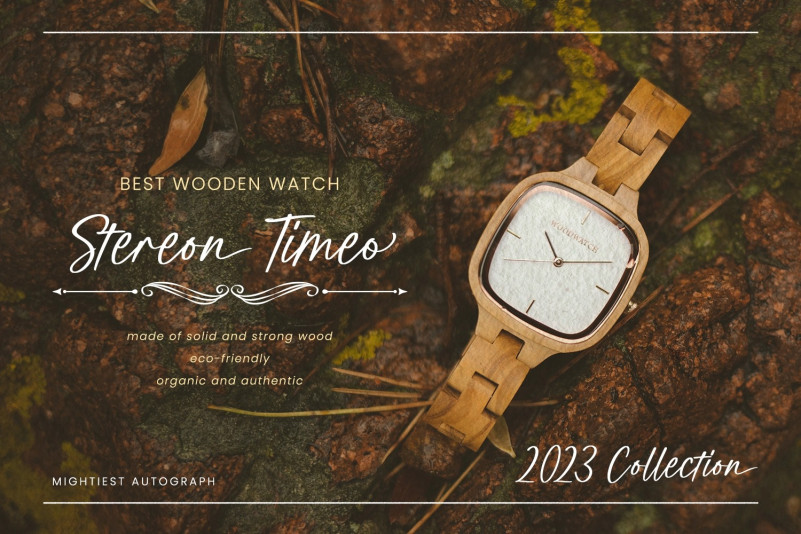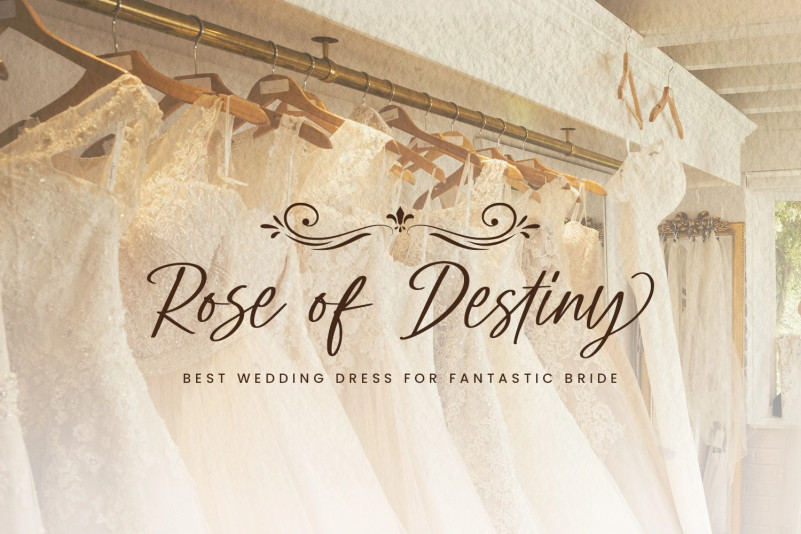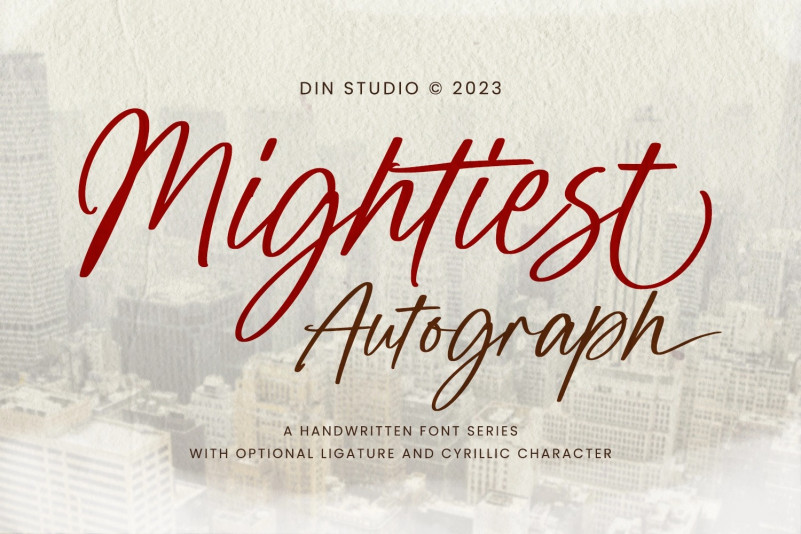
Mighties Autograph Font
Mightiest Autograph Script Font is a handwritten font in a signature looking style to add elegant, personal nuances on your designs. The curves and wipes in the swinging ends of the letters are the main characters. Like the other cursive fonts, each letter is connected to one another to make the font legible. The letters’ proportions are made different for a more artistic looking style applicable for such romantic texts. You can apply this font for any text sizes due to its great legibility. Additionally, you can enjoy the available features here.